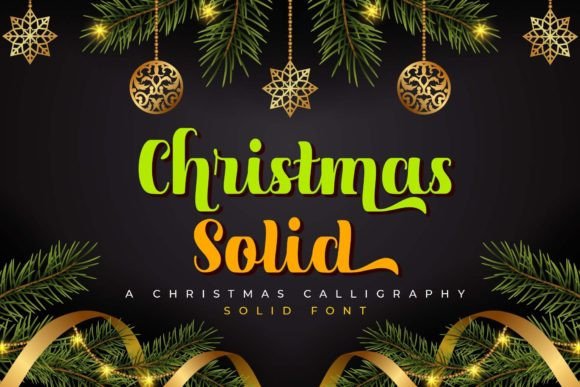
Introducing Christmas Solid Font - the ultimate script font for all your holiday needs! Created by the talented Doehantz Studio, this festive and merry typeface is designed to capture the true spirit of the Christmas season. With its decorative elements and whimsical flair, Christmas Solid Font adds a touch of enchantment to all your designs.
Are you looking to elevate your greeting cards, gift tags, or holiday-themed projects? Look no further! Christmas Solid Font is the perfect choice to bring a cheerful and nostalgic ambiance to your words. Let your typography shine with the magic of Christmas Font!
What sets Christmas Solid Font apart is its versatility and ability to evoke emotions. Its elegant script style seamlessly merges with the joyful and celebratory nature of Christmas. This font is not just a collection of letters; it's a work of art that conveys the warmth, love, and excitement of the holiday season.
But what makes Christmas Solid Font truly special is its ability to transform your designs into captivating masterpieces. With a wide range of characters and glyphs, you have endless possibilities to create unique and eye-catching compositions. Whether you're looking to create stunning quote tattoos, personalized Christmas cards, or captivating social media posts, this font has got you covered.
Imagine the delight on your loved ones' faces when they receive a beautifully designed gift tag or a heartfelt holiday message written in Christmas Solid Font. It's like giving them a piece of the Christmas spirit itself. Spread joy, love, and the magic of the season with every stroke of this exceptional font.